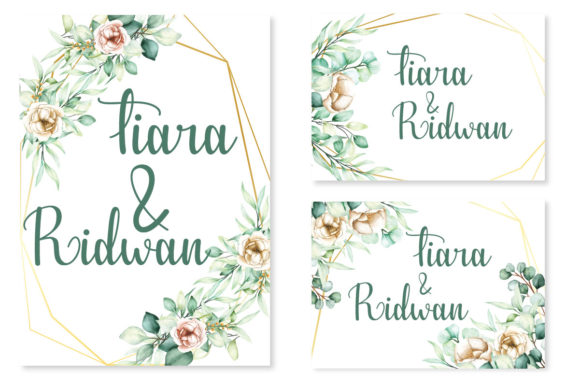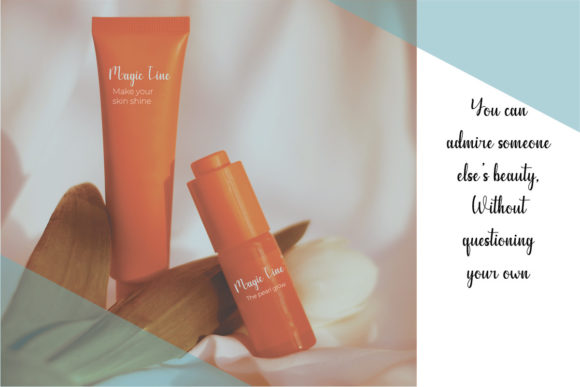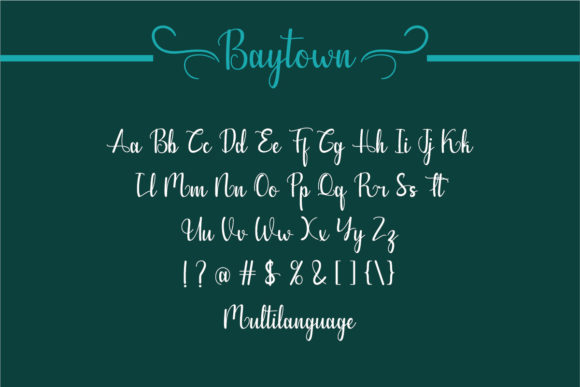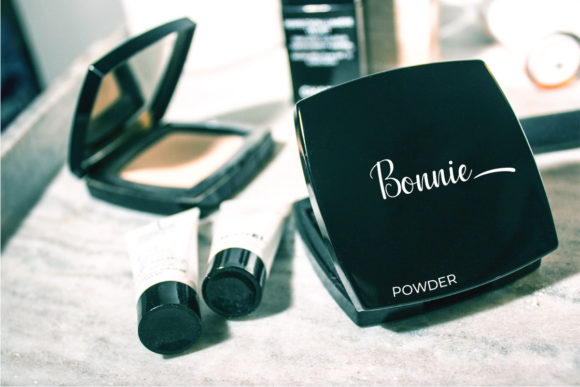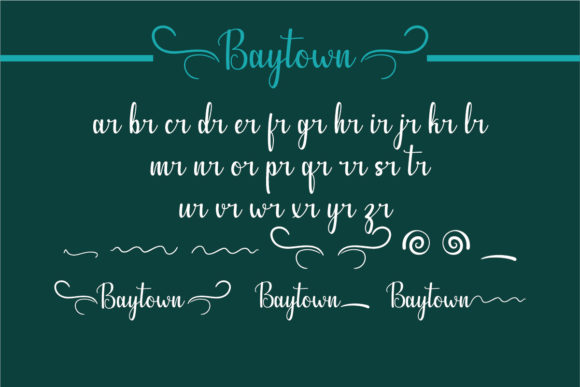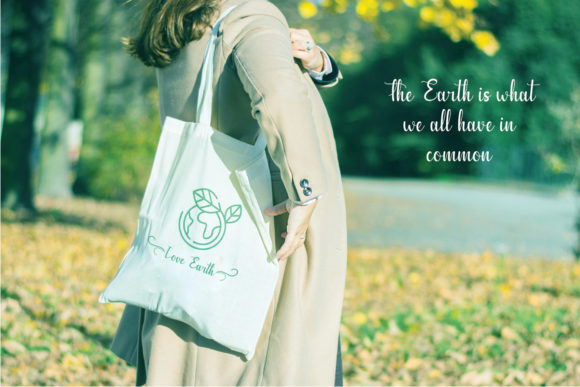
Introducing Baytown Font: The Epitome of Elegance and Versatility
In the realm of typography, few fonts manage to strike a balance between elegance, delicacy, and versatility. Baytown Font, however, stands out as a shining example of a typeface that seamlessly merges these qualities, making it an indispensable asset for designers and crafters alike. This exquisite handwritten font is not just a visual treat but a tool that can elevate your creative projects to new heights.
The Beauty of Baytown Font
Baytown Font is characterized by its delicate and elegant strokes, flowing effortlessly to create a harmonious visual experience. Each character is meticulously crafted to ensure balance and proportion, making the font a joy to behold. Whether you’re working on a branding project, a website design, or crafting beautiful stationery, Baytown Font’s aesthetic appeal is sure to captivate your audience.
One of the standout features of Baytown Font is its remarkable versatility. Its well-balanced characters allow it to complement a wide range of design styles, from modern and minimalist to vintage and ornate. This adaptability makes Baytown Font an excellent choice for various applications, including but not limited to:
- Branding and Logos: Create a lasting impression with a font that exudes sophistication and charm.
- Web Design: Enhance your website’s visual appeal with a font that is both elegant and readable.
- Stationery and Invitations: Add a touch of personal elegance to your cards, letters, and invitations.
- Packaging: Stand out on store shelves with product packaging that boasts a refined and luxurious look.
Baytown Font takes convenience to the next level with its PUA (Private Use Area) encoding. This feature allows designers to access all the glyphs and swashes easily, providing greater flexibility and creativity in their projects. With PUA encoding, you can:
- Explore a Wide Range of Glyphs: Unlock a variety of characters, including alternate letters, numbers, and symbols, to add depth and uniqueness to your designs.
- Customize with Swashes: Incorporate beautiful swashes to add flair and personality to your typography, making it more engaging and dynamic.
Why Choose Baytown Font?
With so many fonts available, why should Baytown Font be your go-to choice? Here are a few compelling reasons:
- Unique and Memorable: Baytown Font’s distinctive style ensures your designs stand out and leave a lasting impression.
- Highly Versatile: Its adaptability makes it suitable for a myriad of design projects, saving you time and effort in searching for multiple fonts.
- User-Friendly: Thanks to PUA encoding, working with Baytown Font is hassle-free, allowing you to focus on the creative aspect of your projects.
- Elegant and Professional: The font’s elegant appearance lends a professional touch to your designs, enhancing your brand’s image and credibility.
Baytown Font is more than just a typeface; it’s a design companion that can transform your creative visions into stunning realities. Its delicate, elegant, and flowing handwritten style, combined with its versatility and PUA encoding, makes it an invaluable resource for designers and crafters. Whether you’re aiming to create visually captivating websites, compelling branding materials, or beautiful stationery, Baytown Font is the perfect ally. Embrace the elegance and versatility of Baytown Font in your next project and witness the magic it brings to your designs.